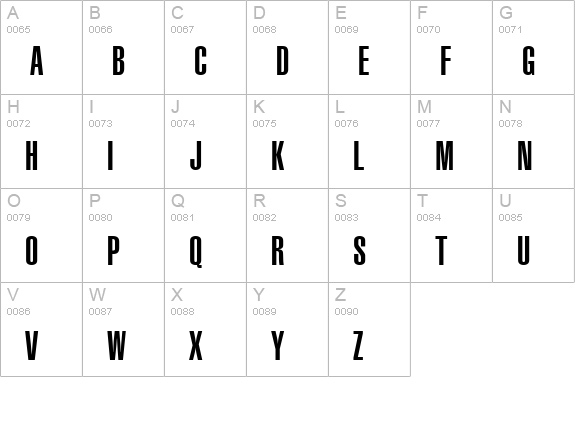
Context Ultra Condensed SSi Ultra Condensed Font Details
Context Ultra Condensed SSi Ultra Condensed is an extreme-weight, display, condensed-width variant in the Context typeface family \xE2\x80\x94 well suited to extreme display use where maximum visual weight is required.
Context Ultra Condensed SSi Ultra Condensed font is a sleek and modern typeface that is perfect for projects requiring a space-saving design. With its ultra condensed style, this font exudes a sense of efficiency and sophistication. The sharp, clean lines of each letter make it ideal for headlines, logos, and other display purposes where every inch of space matters. The best part? Context Ultra Condensed SSi Ultra Condensed font is available for free download at FontsMarket.com. Whether you're a designer looking for a versatile typeface or a business owner wanting to make a statement with your branding, this font is sure to impress. Don't miss out on the opportunity to add this stylish font to your collection today!